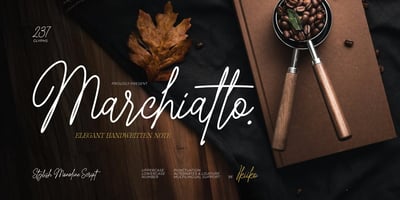
Marchiatto
Marchiatto font
Marchiatto Font Family was designed by Andhika Pradana and published by IKIIKOWRK. Marchiatto contains 1 styles and family package options. Proudly present Marchiatto – Elegant Handwritten Note, created by ikiiko.Marchiatto is a stylish and elegant handwriting font that radiates beauty and sophistication. Its signature script style infuses a touch of luxury into any project, making it perfect for high-end fashion designs and upscale branding.Whether you’re designing chic wedding invitations or creating glamorous social media graphics, Marchiatto’s luxurious elegance will elevate your work to new heights. This font adds a refined and fashionable flair, ensuring your text stands out with unparalleled grace and style.This font is very suitable for making a branding, brand identity, logo, luxurious design, fashion stuff, feminine brand, magazine or catalogue design, headline, apparel, quotes, or simply as a stylish text overlay to any background image that demand attention.What’s Included? Uppercase & Lowercase Numbers & Punctuation Alternates & Ligature Multilingual Support Works on PC & Mac Get also a good offer & FREEBIE at our site : www.ikiiko.comEnjoy our font and if you have any questions, you can contact us by email : ikiikowrk@gmail.com